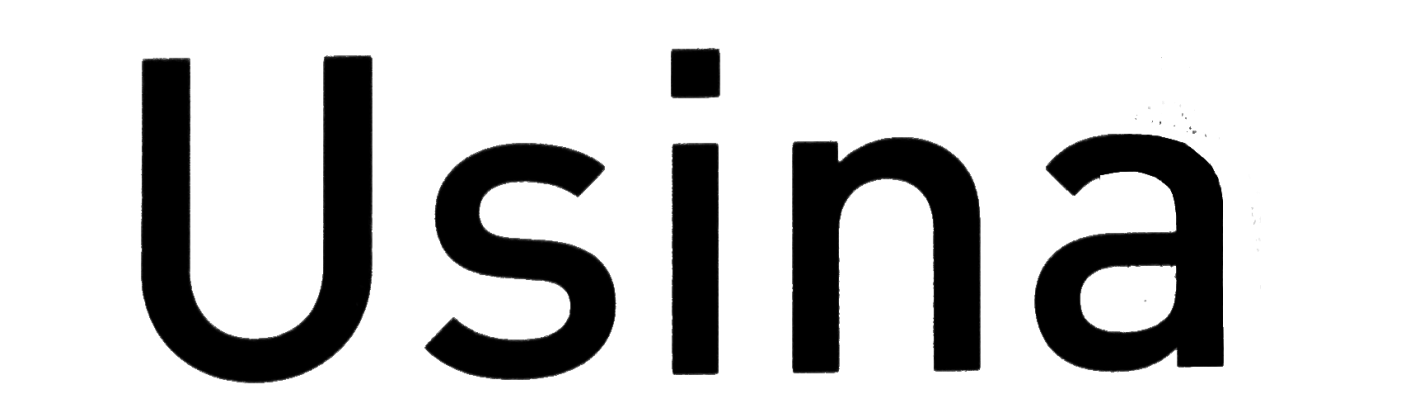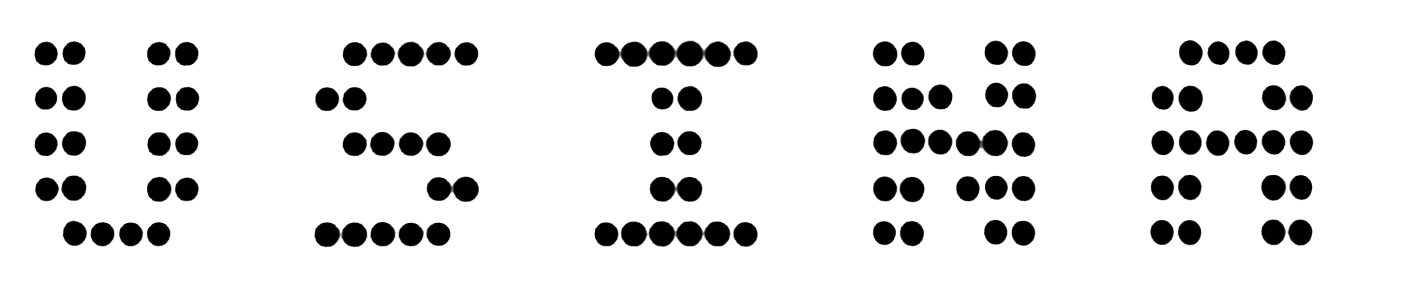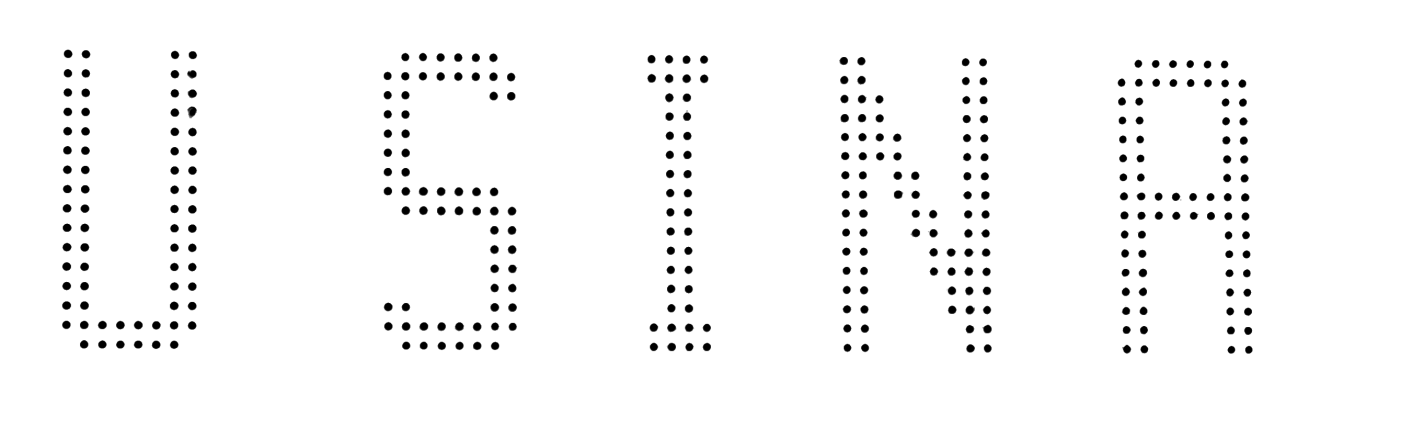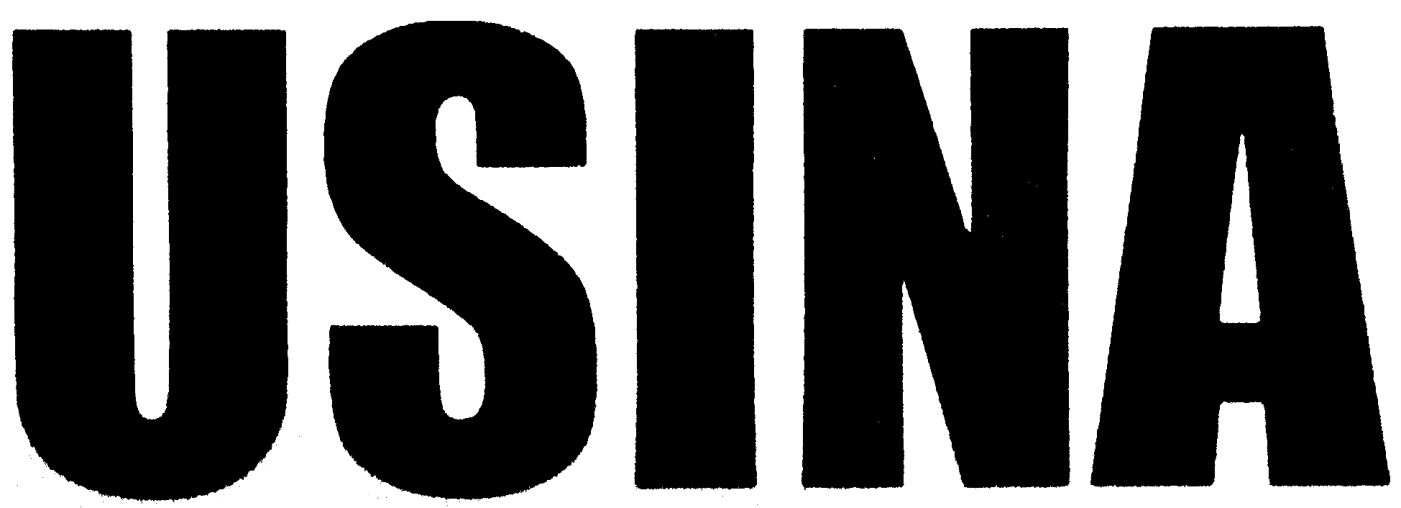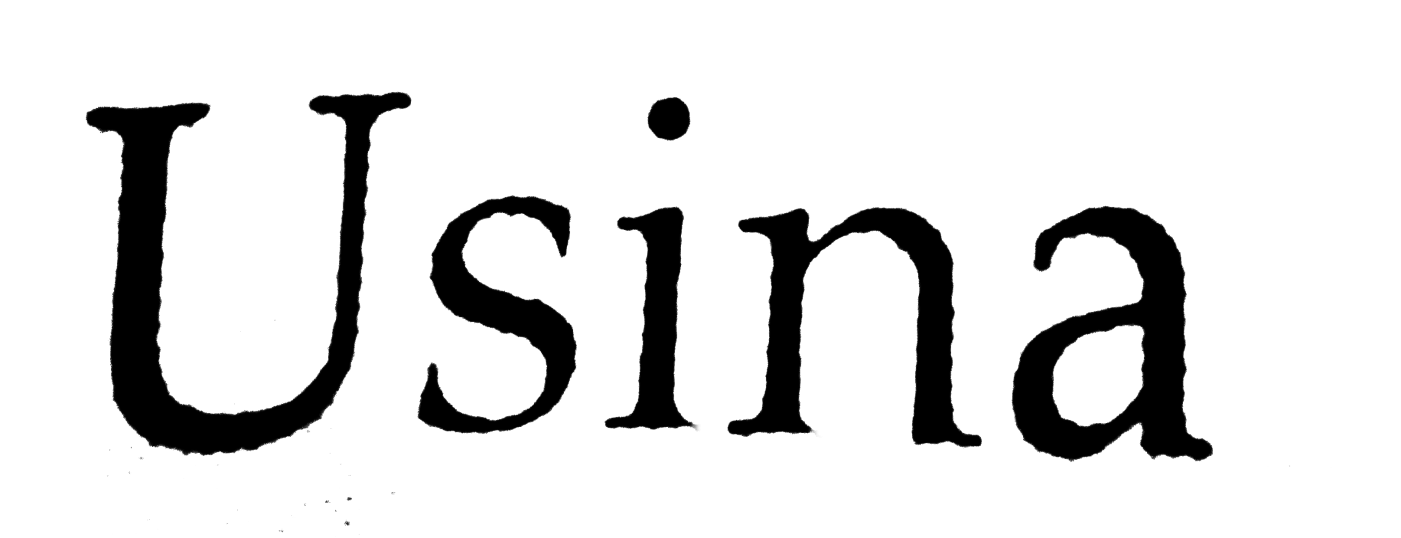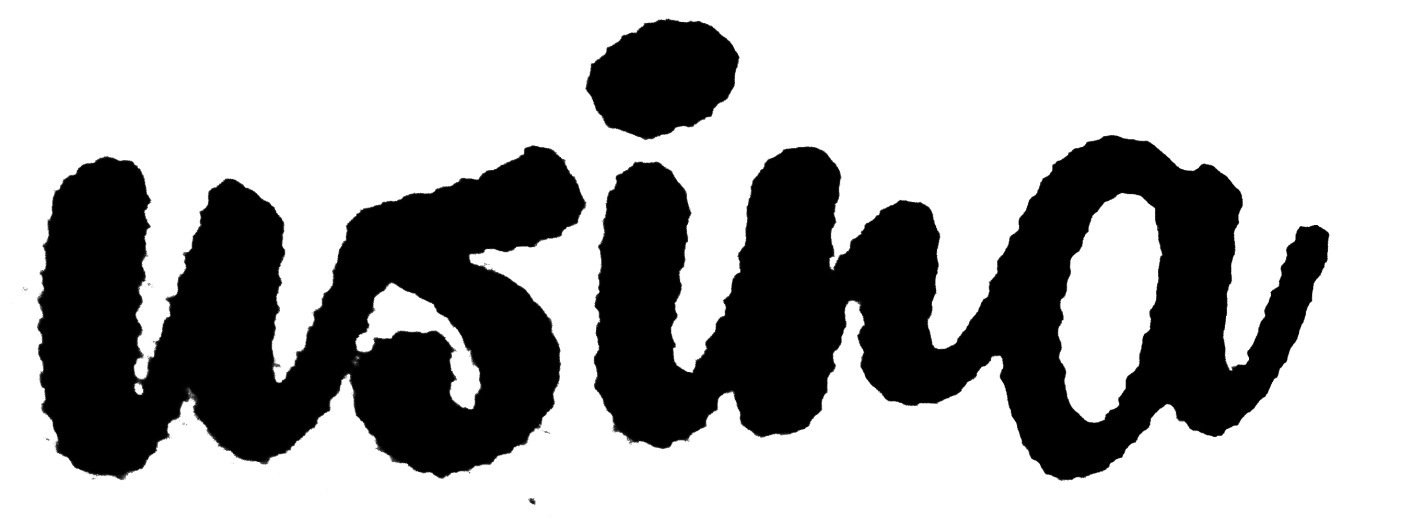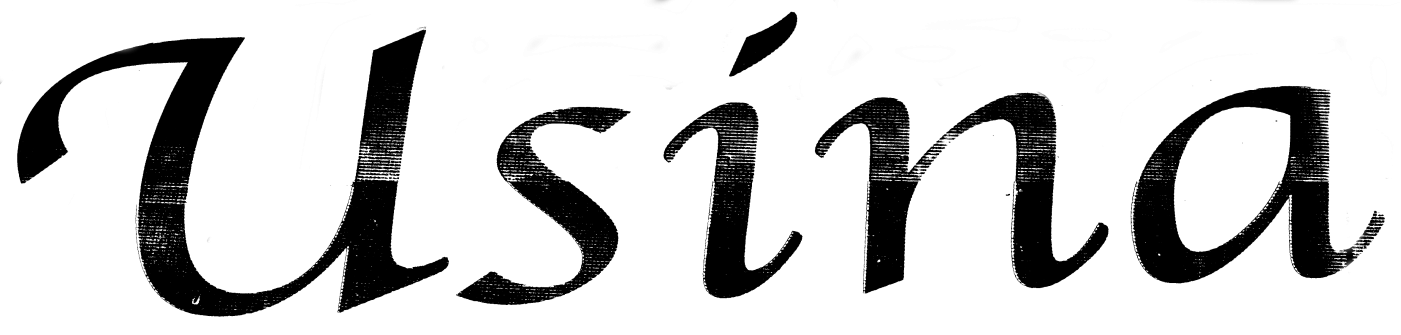
USINA public typefaces
Hello. I'm doing a graphic design project and I would like to use these public typefaces I have found on a neighbourhood called USINA in my city (Rio de Janeiro)
Could you please help me to identify them?
Solved by Ignacio
Thanks guys! So 1. FF Din Medium, 4. Impact, 5. Palatino. The second and the third might not exist as a typeface, since they were taken from the lightsigns' of buses. But the 6. and 7., despite the bad renderings, I think they exist
Last one is Apple Chancery:
The second and the third might not exist as a typeface, since they were taken from the lightsigns' of buses.
You could look for similar ones using keywords like “receipt”, “bus”, or “impact printer”.